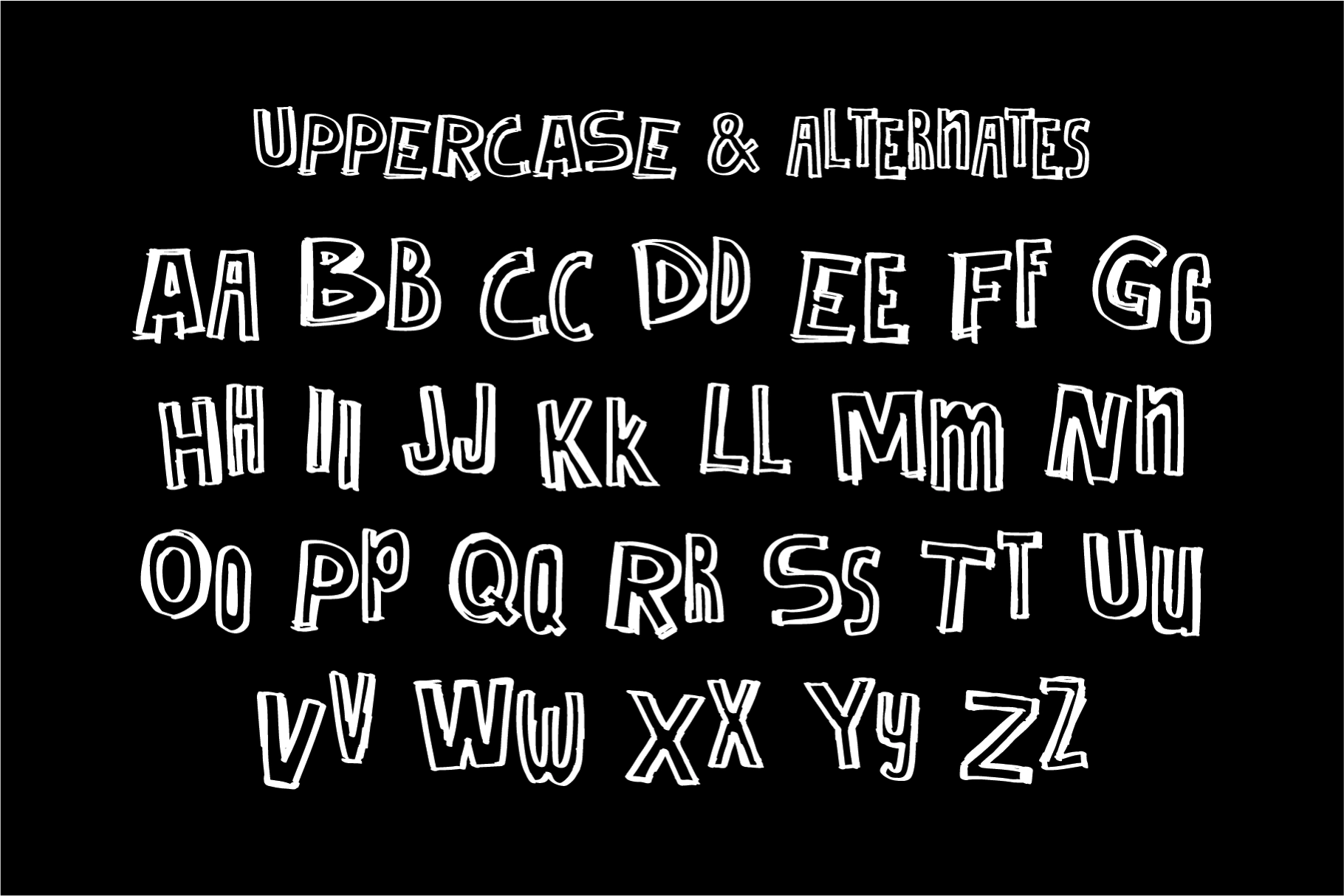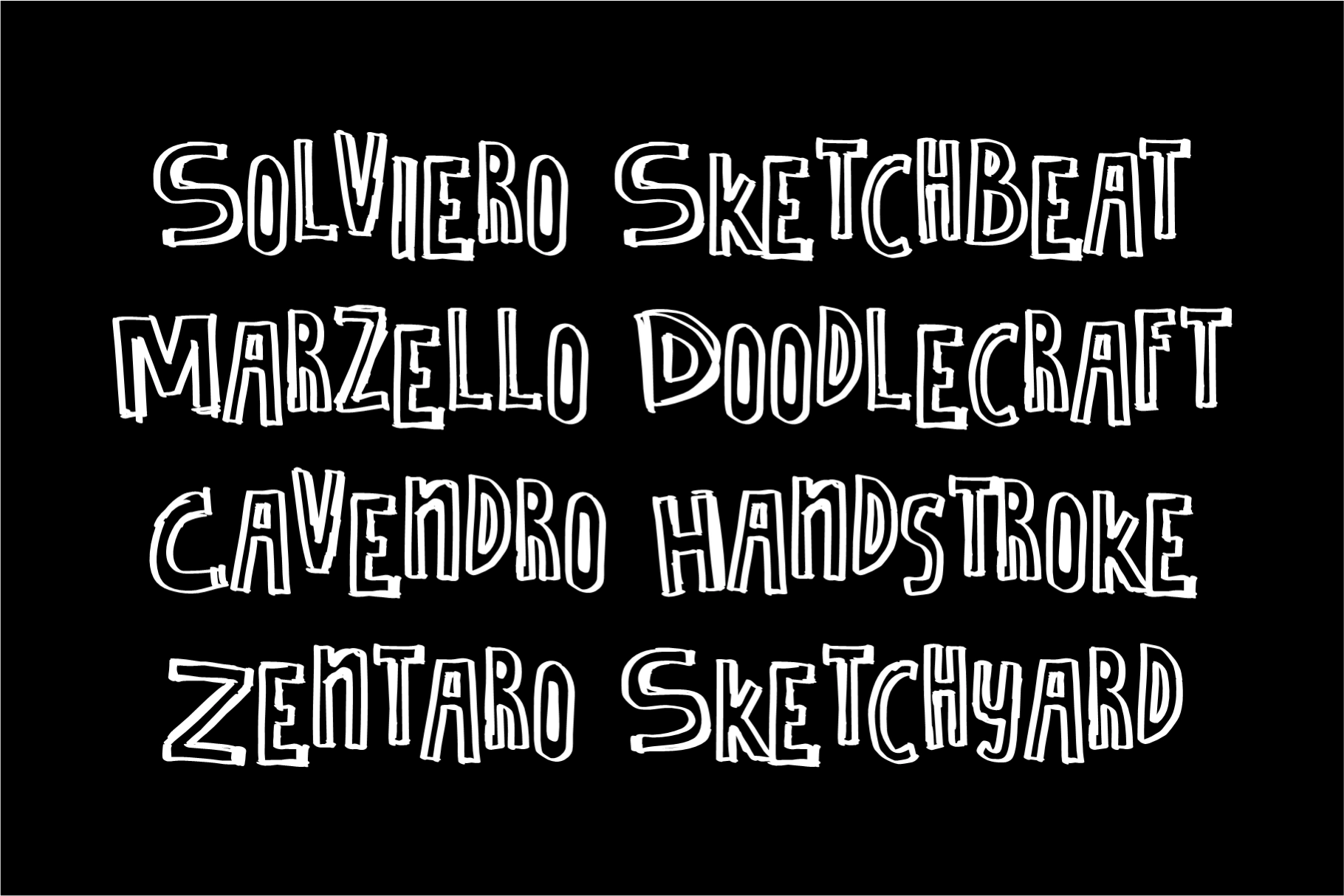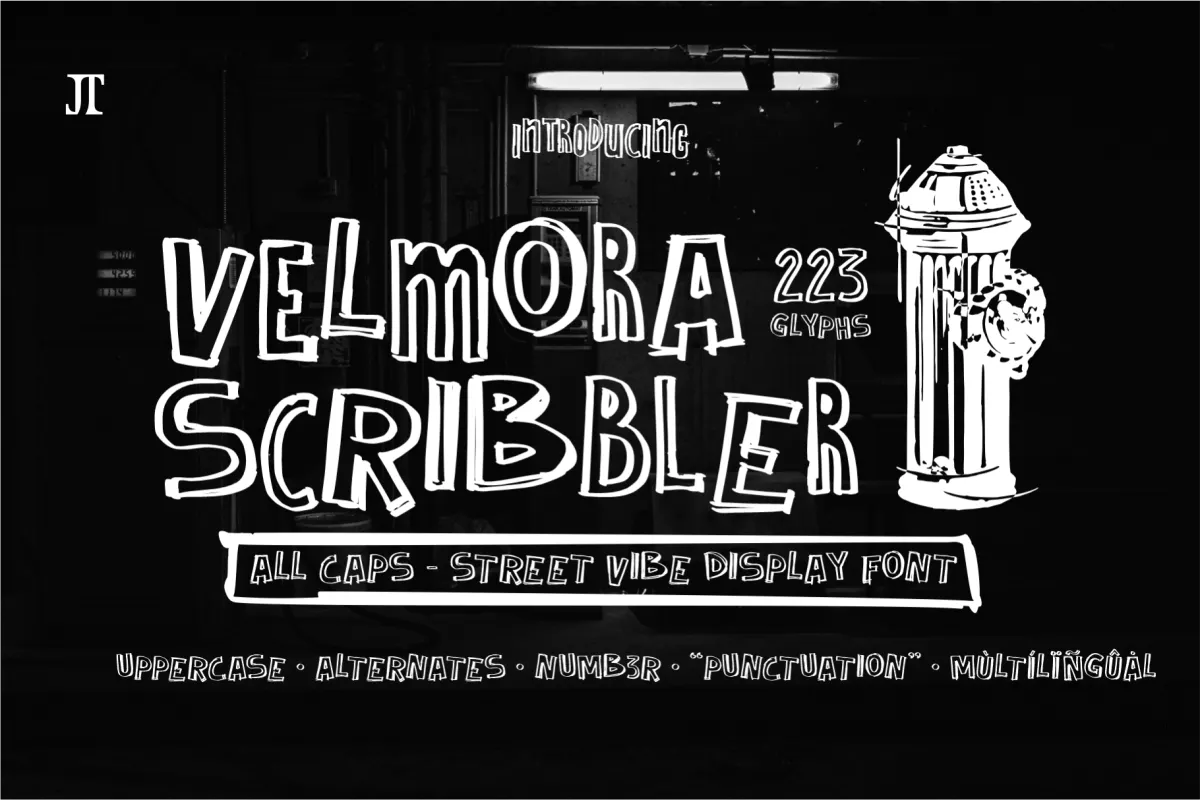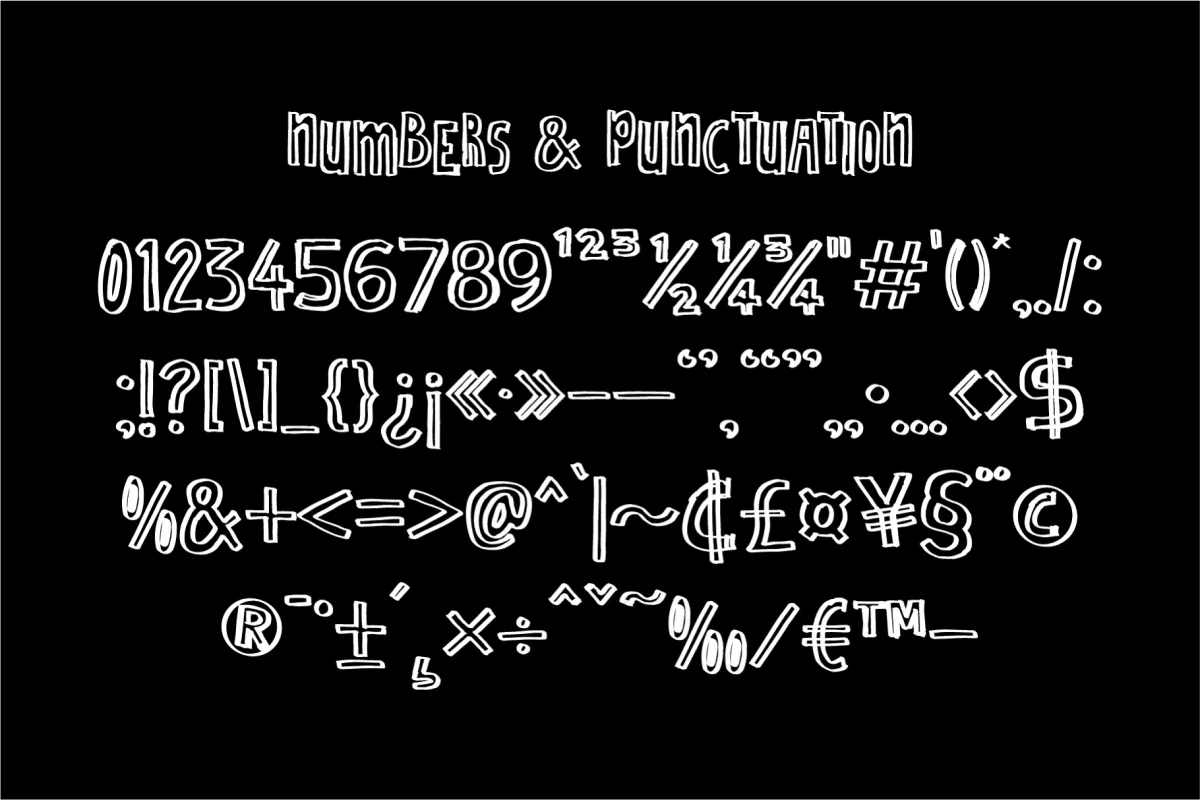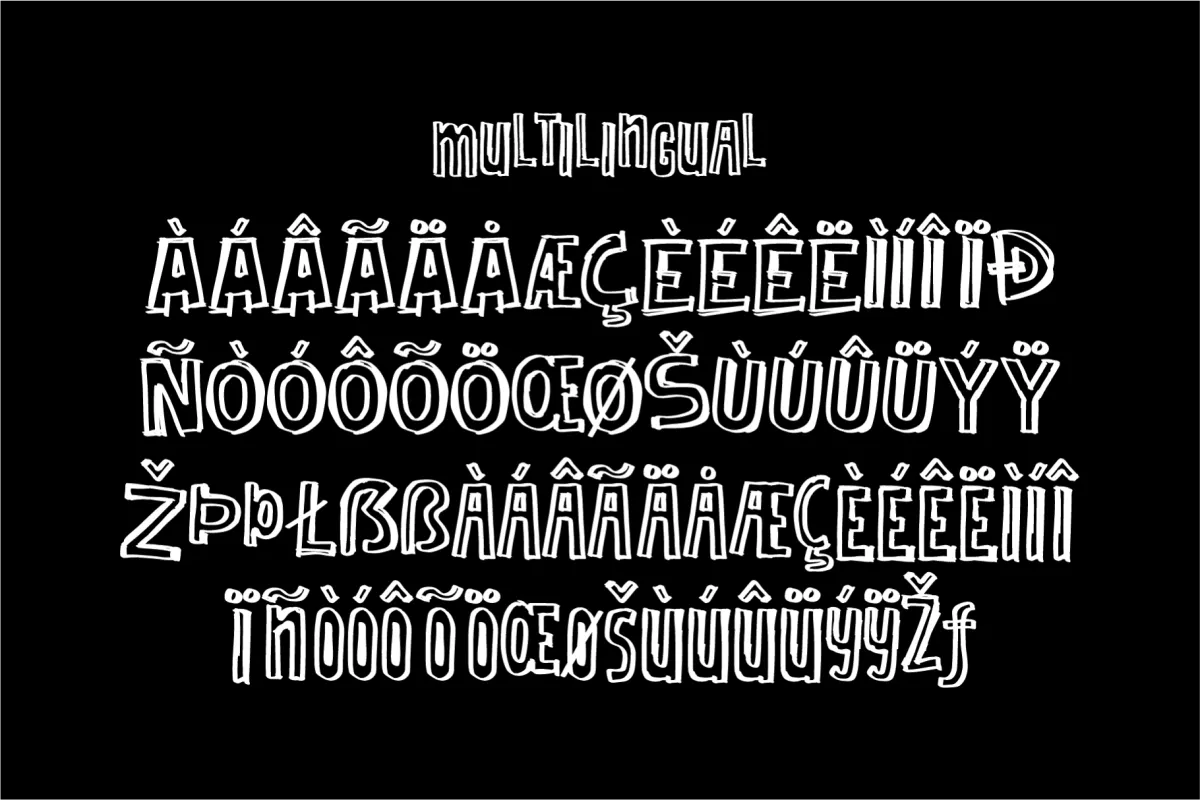
Velmora Scribbler - Hand Drawn Outline Font
Velmora Scribbler
This handdrawn display font has all-caps letterforms, rough outline strokes, and a loose scribble construction that reads like marker sketches after dark. Its double-line shapes bring an urban doodle look with enough clarity for posters, covers, merch, and loud headline work.
Velmora is made for streetwear branding, album covers, skateboard graphics, event posters, stickers, merchandise, YouTube thumbnails, comic-style designs, social media graphics, logo concepts, zines, music flyers, mural-inspired layouts, and bold packaging. The alternates add variation to the uppercase set, while numbers, punctuation, and multilingual characters keep the font practical beyond one-word chaos.
- Uppercase letters
- Alternate characters